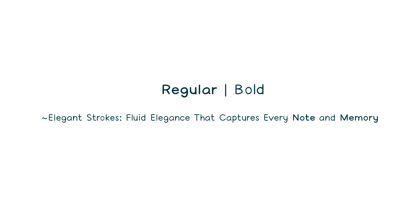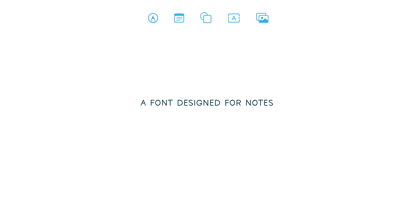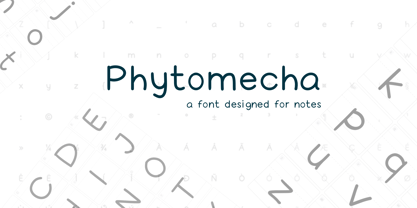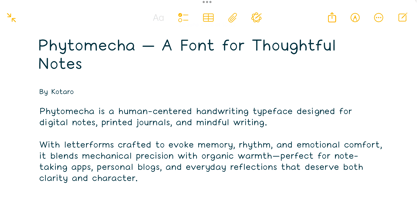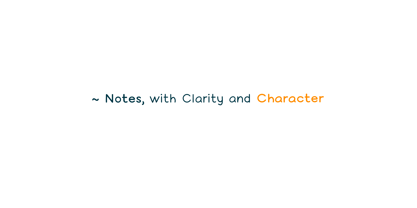
Phytomecha
von Kotaroisme
Die Schriftfamilie Phytomecha wurde von Kotaro Minami entworfen und von Kotaroisme veröffentlicht. Phytomecha enthält 2 Stile und Familienpaketoptionen.
Phytomecha is a human-centered handwriting typeface designed for digital notes, printed journals, and mindful writing. With letterforms crafted to evoke memory, rhythm, and emotional comfort, it blends mechanical precision with organic warmth—perfect for note-taking apps, personal blogs, and everyday reflections that deserve both clarity and character.
Use Phytomecha to capture meeting minutes in your favorite tablet app, stylize blog headers with a touch of authenticity, or enhance printed planners with a font that feels like your own penmanship. Its subtle stroke variations reduce eye strain and spark creativity, making every project—from project outlines to gratitude logs—more engaging and beautiful.
Elevate your writing: let Phytomecha turn each note into an experience worth remembering.